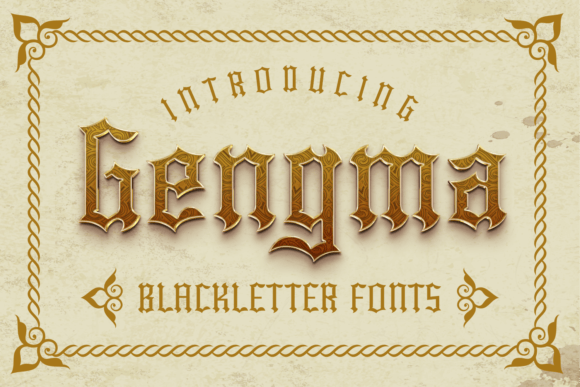
Introducing Gengma Font, the ultimate choice for vintage t-shirt enthusiasts! This captivating blackletter font, created by the renowned Creative Fabrica Fonts, is here to elevate your typography game and bring your creative visions to life.
With its distinct gothic look and unparalleled charm, Gengma Font stands as a testament to the perfect blend of tradition and innovation. Immerse yourself in a world of nostalgic vibes and captivating designs as you explore the endless possibilities that this font offers.
Crafted with meticulous attention to detail, Gengma Font guarantees a seamless experience for both designers and users alike. Its carefully crafted set of characters ensures that each letter exudes a unique aura, making your text truly stand out. From headlines to logos, this font will leave a lasting impression on any project.
Unleash your creativity and let Gengma Font be your partner in design! Whether you're working on vintage-inspired t-shirts, retro logos, or classic signage, this font is your go-to choice. Its versatility allows it to seamlessly adapt to any creative vision, effortlessly capturing the essence of bygone eras.
What sets Gengma Font apart from the rest is its ability to evoke emotions and transport your audience to a different time. Each stroke tells a story, invoking a sense of nostalgia and authenticity that is hard to replicate. As you browse through the characters, you'll find yourself captivated by the intricate details and timeless beauty.
But it doesn't stop there! Gengma Font also offers a wide range of weights and styles, allowing you to explore various design possibilities. From bold and impactful to elegant and refined, this font has it all. Let your imagination run wild and watch as your creations come to life with the perfect touch of vintage charm.